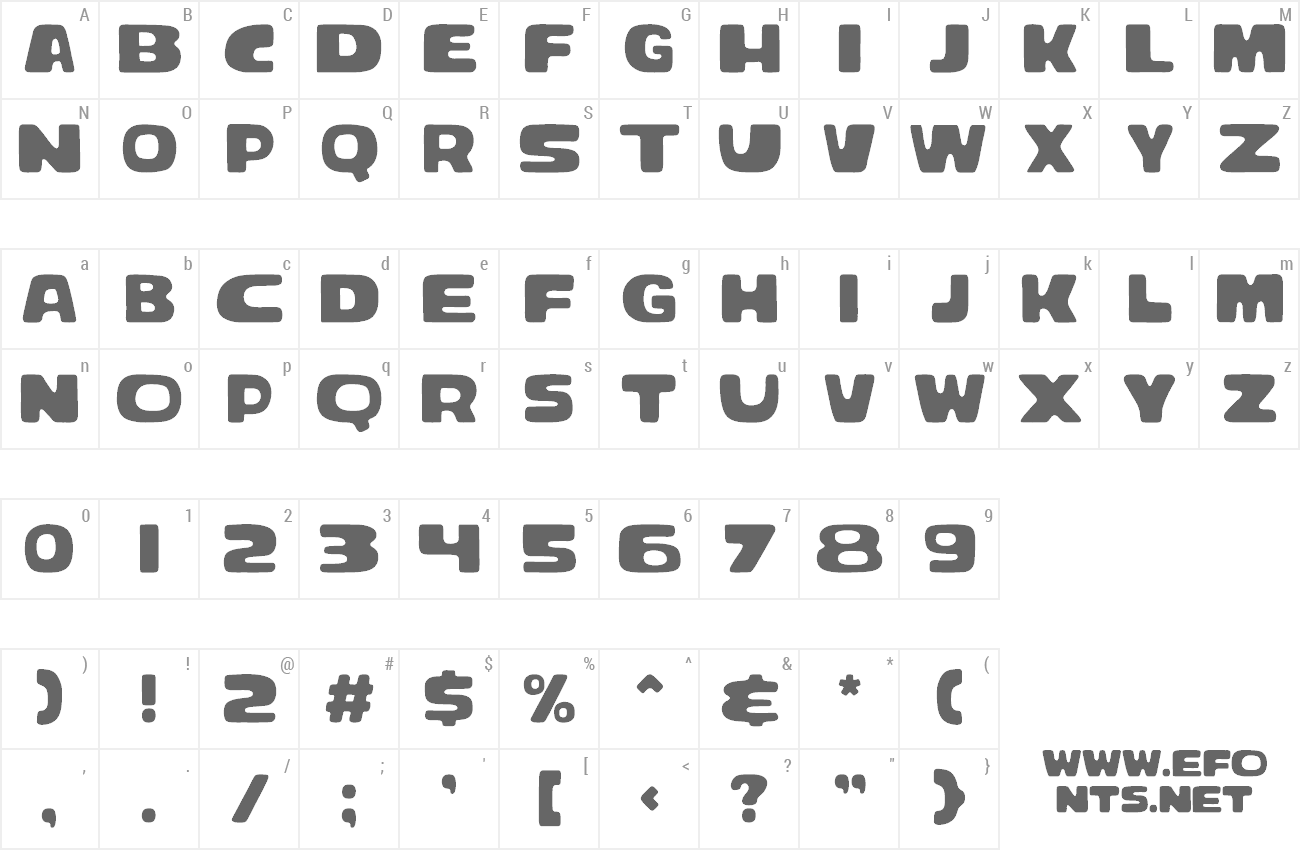
| Font name: | Bracheos |
| Author: | Kyle Hathcoat |
| Note by Kyle Hathcoat | |
Bracheos is a pudgy display typeface inspired by prehistoric times. As always, it's completely free for all personal and commercial use. |